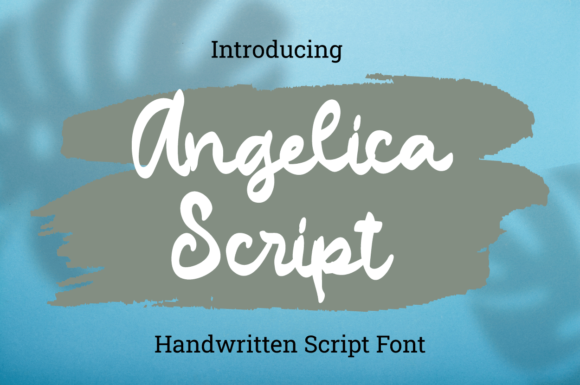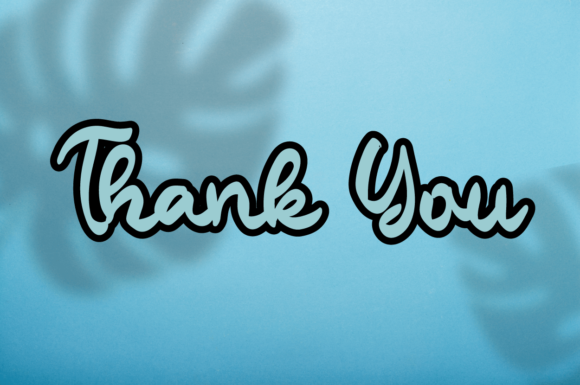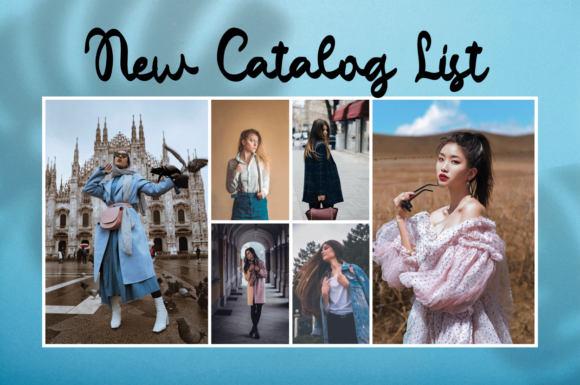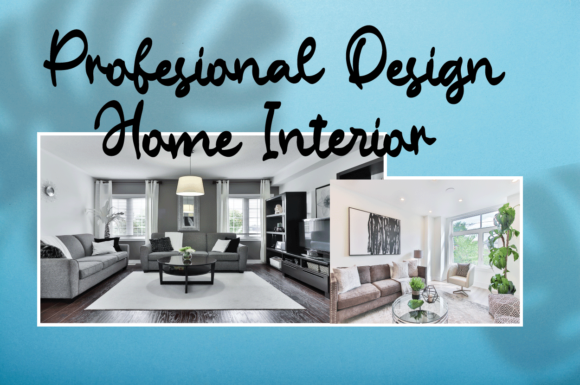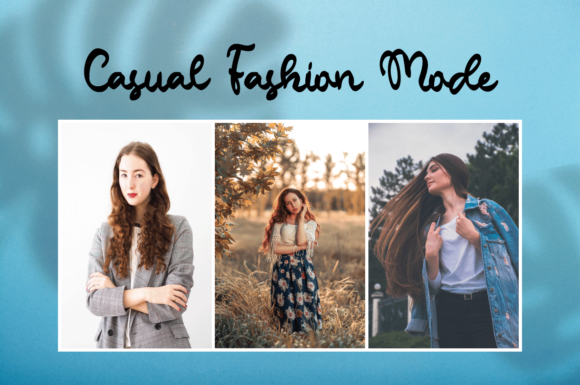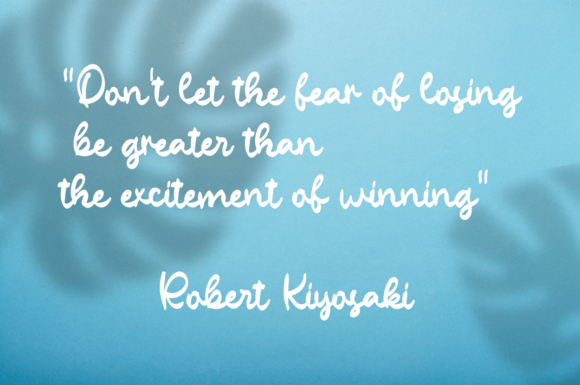
Angelica Script Font
About Angelica Script Font
Angelica Script is a delicate and sweet handwritten font. It features well balanced and neat characters that will fit various creations. Add it confidently to your projects, and you will love the results.